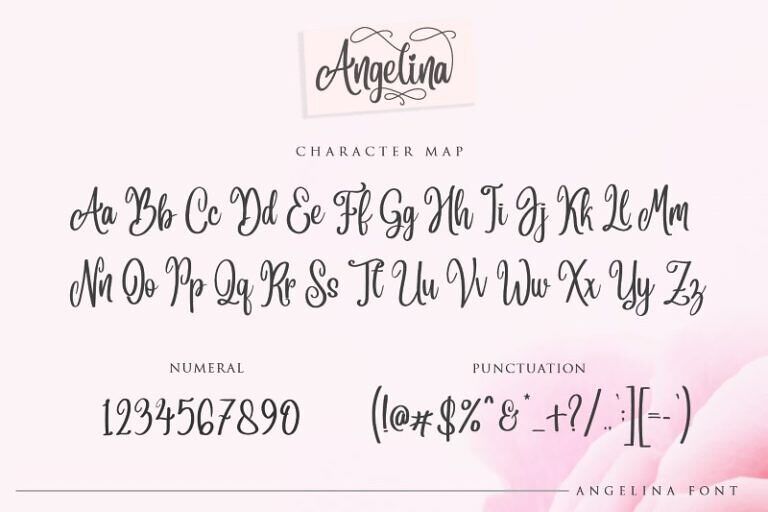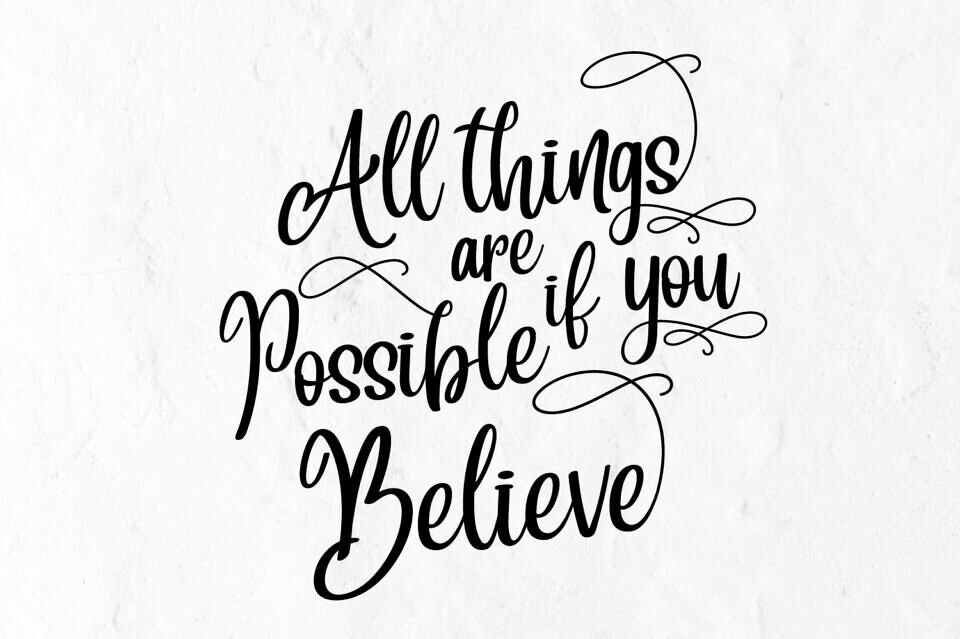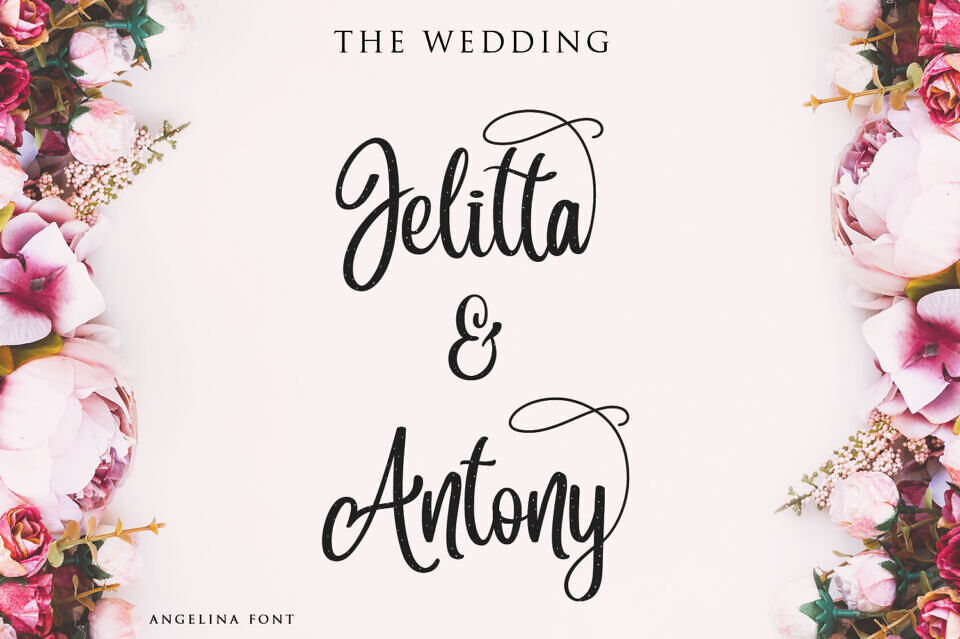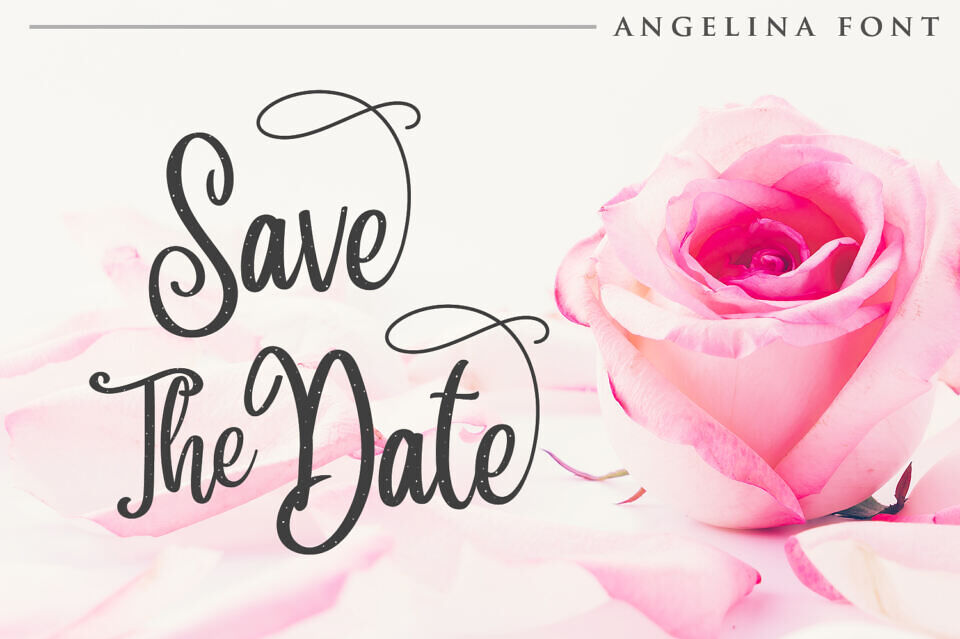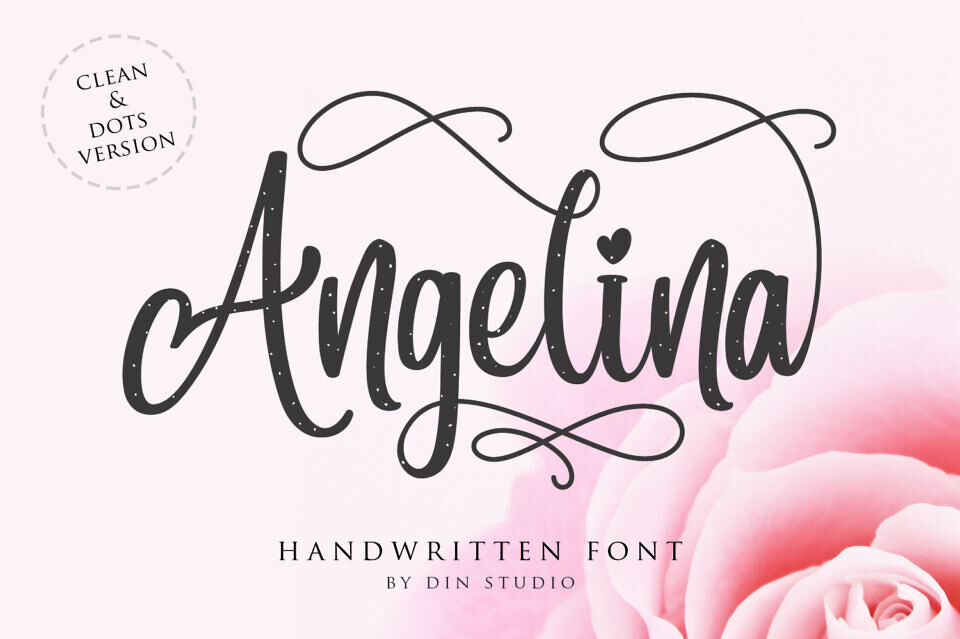
Angelina Font
Angelina Script is a stunning handwritten font created by Din Studio. With a natural and modern style, this font is suitable for your project designs. Angelina was created to help you make a typeface as if it were real handwriting. This font includes a full set of hand-written uppercase and lowercase letters, numerals, punctuation, and ligatures.
Angelina font comes with a perfect line and is perfectly used for various purposes, like weddings, branding, logotypes, quotes, and more.